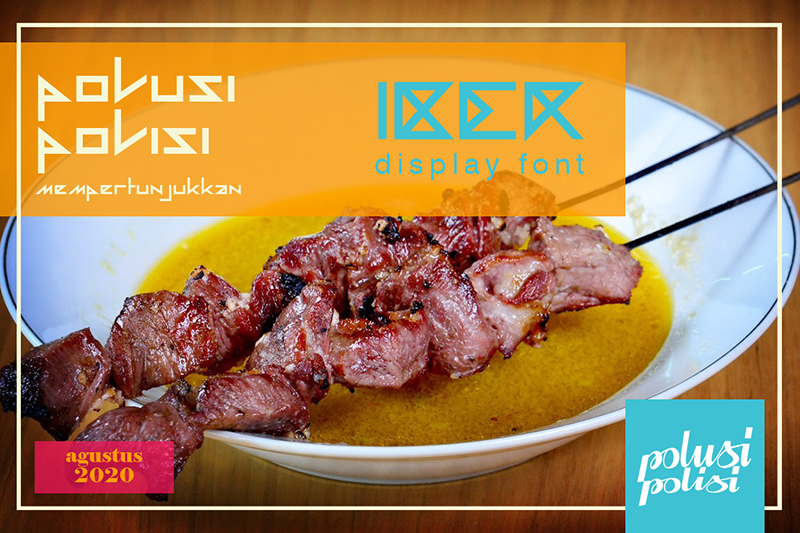
Preview and download Iber Font. Created by polusi polisi in Techno Various styles with Free for personal use license.
Hello, design enthusiasts. Introduce, this is my newest font, named Iber. Iber is a display font that accentuates geometric lines, has a strong and firm impression. Iber is perfect for use on decals, logo design, media, merchandise, stickers, t shirt designs, etc. What's included : - Iber OTF - Iber TTF Features : - Uppercase - Lowercase - Numbers - Punctuation Follow my shop and don't forget to check my other fonts. Please send criticisms, suggestions and questions to b_ibnu_r@comic.com. Thank you. donate paypal.me/bibnur linktree rb.gy/6kv7j |